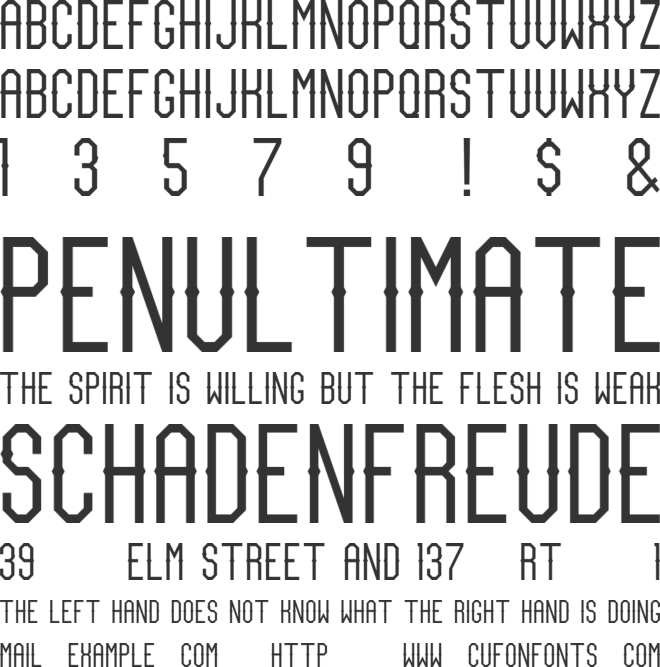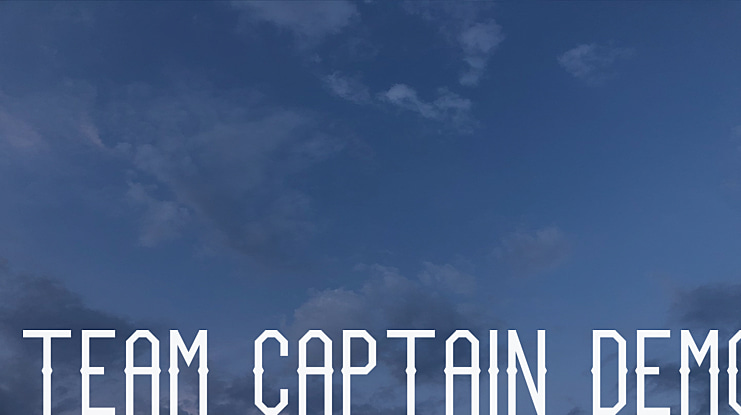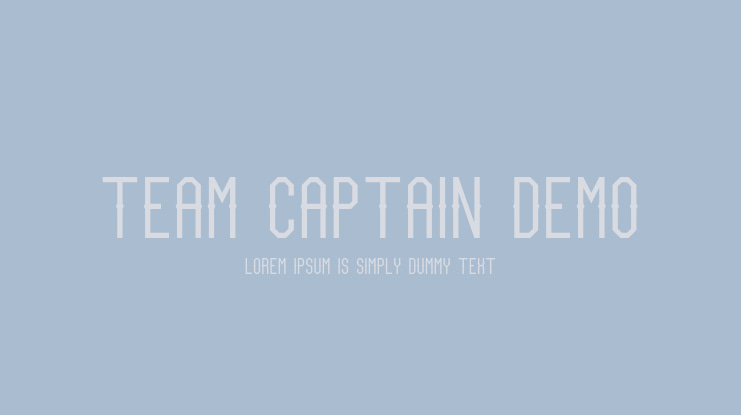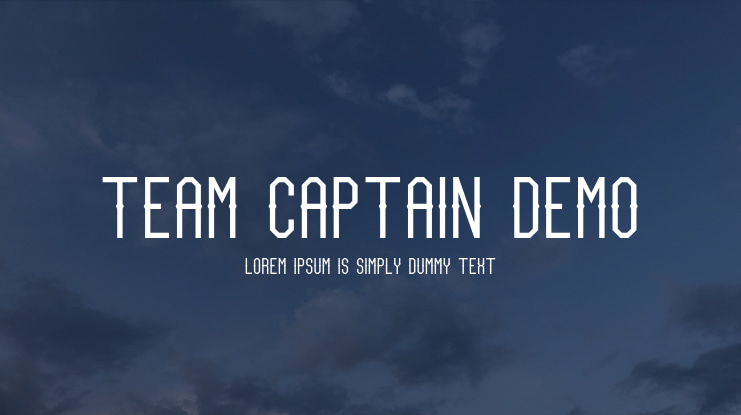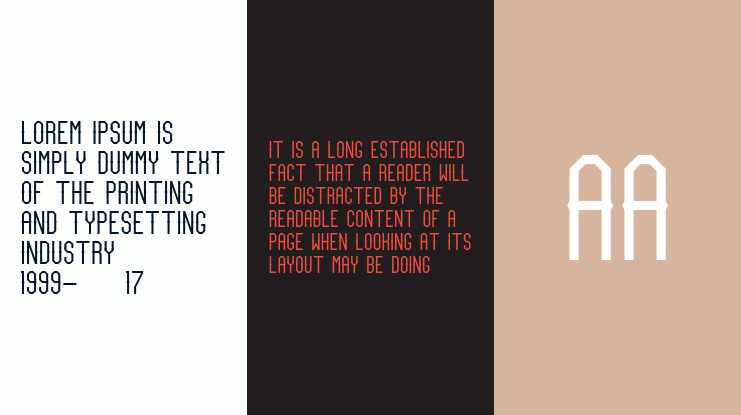
Team Captain Demo Font
Team Captain is one of our first ventures into athletic fonts. In keeping with much of our early work (Annihilate, Lightning Cruz, Munich), Team Captain features tall glyphs and thin lines.
We were inspired to redevelop Team Captain after seeing how often it has been used in logo design projects. Our newest version of Team Captain features a new alternate capitals letter set in the lowercase without mid-height spurs, as well as new punctuation and special characters.